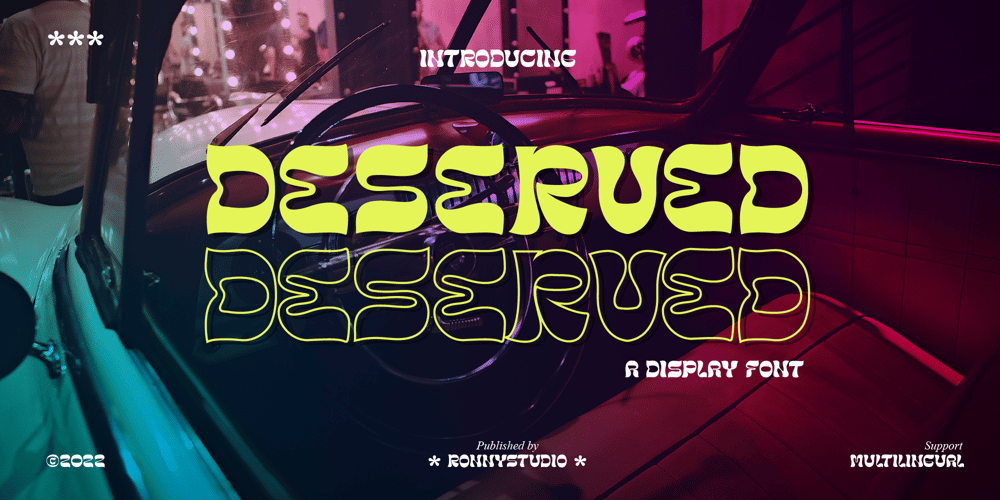
Deserved Font Family was designed by Rony Rizki Jaya and published by Ronny Studio. Deserved contains 2 styles and family package options. Deserved is an elegant look typeface. A unique font, with bold and thin sizes, adds to the impression of elegance, luxury and class. This typeface is perfect for logos, branding, travel promotions, social media posts, magazine layouts, product packaging, quotes, or simply as a stylish text overlay onto any background image.2 Style Font : Regular Italic Deserved Features : Uppercase Lowercase Numbers & Punctuation Multilingual Support Simple installation All of features and special characters of this font are included in one file. So it is easy to accessed by using program or software that support the opentype like Adobe Illustrator, Adobe Photosop, and Adobe Indesign). This font also very easy to use because compatible for all software even for non-opentype supported. Please comment us if you have any questions Thank you and have a nice day.thank you